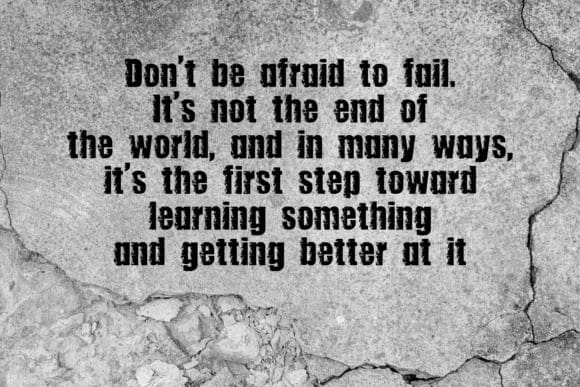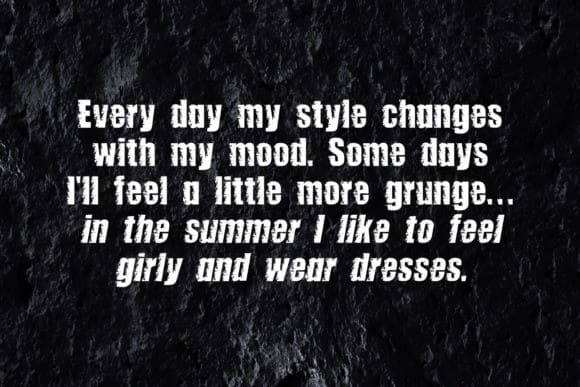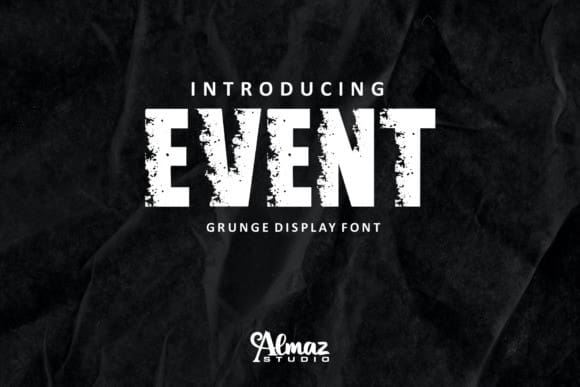
Event Display Font
Event Display Font is a grunge font intended to have a rough look. It looks bold and can either be casual or formal in appearance. Event is a strong, modern sans serif display font. The style of this font is strong, modern, grunge, techno, futuristic, manly, sporty, etc. Great for logo, brandings, headlines, etc.
Event Display is a grungy font with white patches in the letters that can be used for text headlines and advertisement purposes, amongst others.